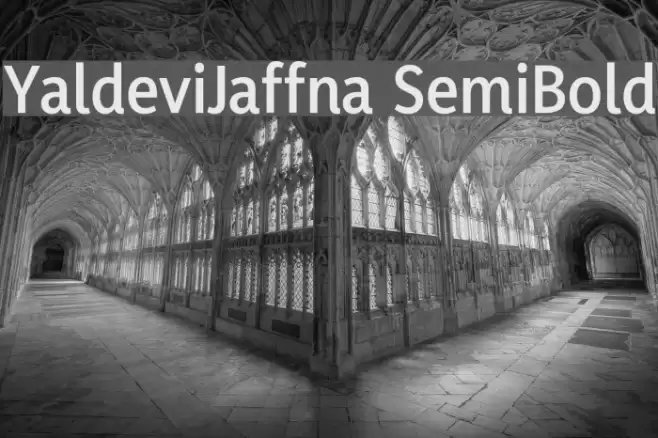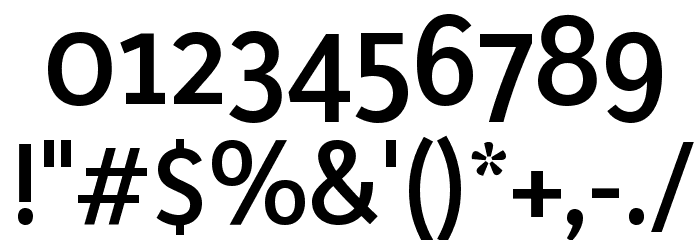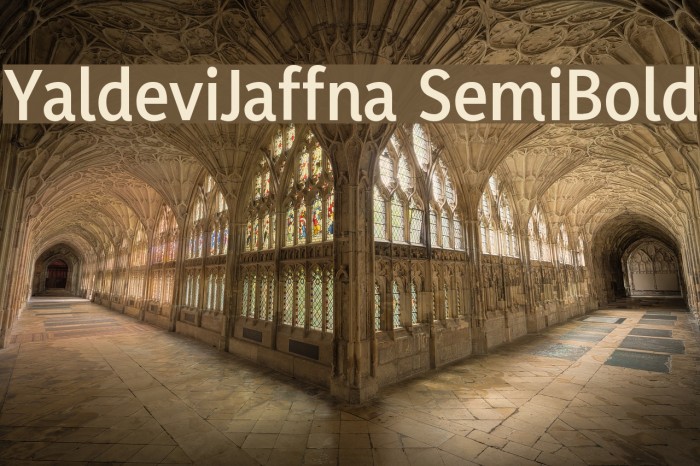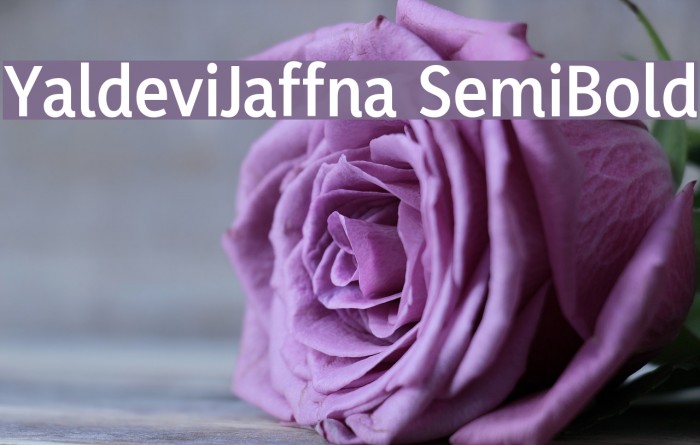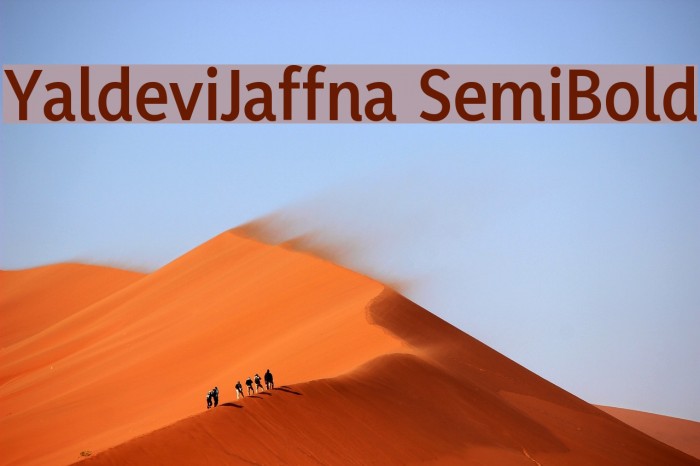
YaldeviJaffna SemiBold Font
YaldeviJaffna SemiBold Description
This font features a clean and modern sans-serif design with a semi-bold weight, offering a balanced and legible appearance. The characters are well-proportioned with a consistent stroke width, providing a harmonious and professional look. The uppercase letters are slightly taller than the lowercase, enhancing readability. The numerals are clear and distinct, making them suitable for various applications. Special characters are well-defined, maintaining the font's overall aesthetic. The design is versatile, making it ideal for both digital and print media.
A modern sans-serif font with a semi-bold weight and clean, legible design from Uncategorized fonts.